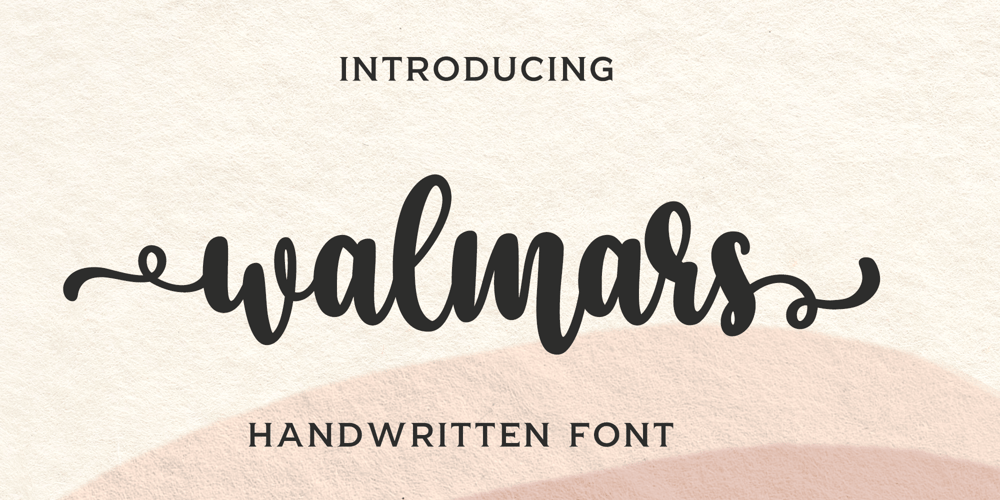
Walmars Font Family was designed by Dian Haniffan Hadi and published by Beary. Walmars contains 1 styles and family package options. Walmars is a romantic and sweet calligraphy typeface with characters that dance along the baseline. It will add a luxury spark to any design project that you wish to create! This font is PUA encoded which means you can access all of the amazing glyphs and ligatures with ease!Files Include :Multilingual SupportAlternate CharacterLigature CharacterThanks